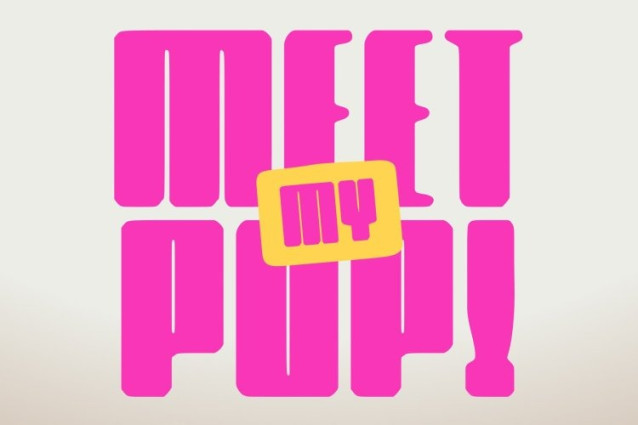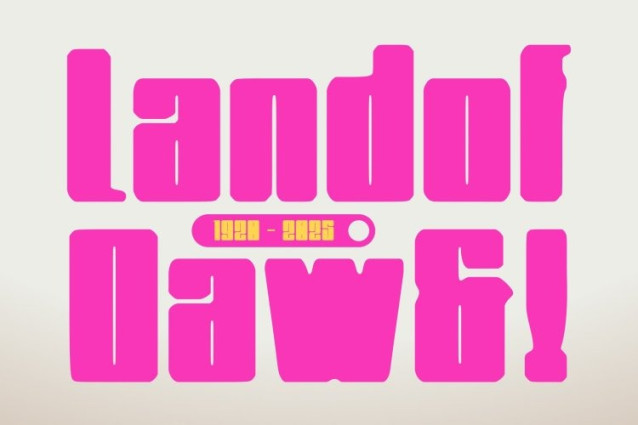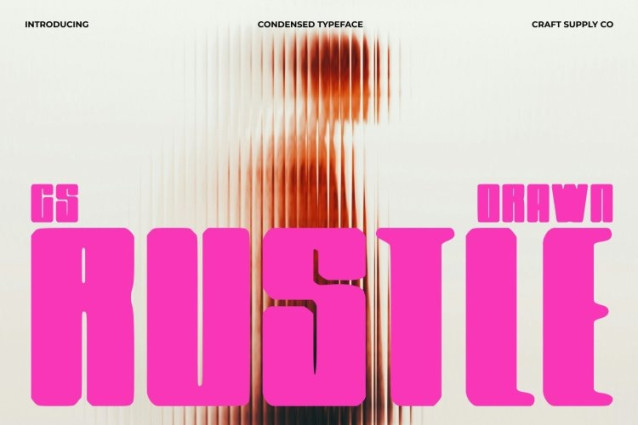
CS Rustle Drawn Font
CS Rustle Drawn Font This is a modern condensed sans-serif font that combines bold structure with a subtle hand-drawn texture. Its clean, geometric construction delivers a strong contemporary presence, while the drawn effect softens the precision, adding natural character and visual warmth. The result is typography that feels confident, modern, and uniquely expressive.
Compact Precision with Organic Character
Designed with a condensed width, this font maximizes space without sacrificing impact. Its slim proportions make it ideal for tight layouts, while the hand-drawn nuances introduce slight irregularities that keep the font from feeling rigid. This balance between efficiency and personality makes it both practical and visually engaging.
Professional Strength with Natural Texture
The consistent weight and structured form of this font communicate professionalism and clarity. At the same time, the drawn effect adds a human touch, creating a more approachable and distinctive aesthetic. This makes it suitable for branding, corporate visuals, editorial headlines, and modern design systems that want to stand out subtly.
Powerful for Display, Branding, and Promotion
From logos and advertising to packaging, posters, and digital banners, this font delivers bold impact with a handcrafted edge. Its condensed form ensures strong presence in limited space, while its natural texture adds uniqueness and charm. It’s a font that speaks with authority, efficiency, and modern character compact, bold, and unmistakably original.